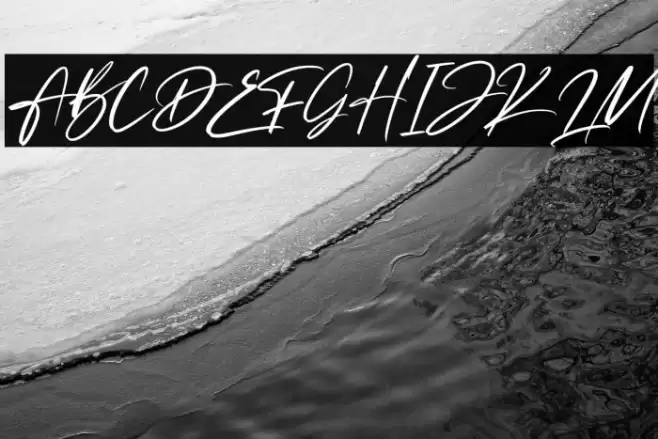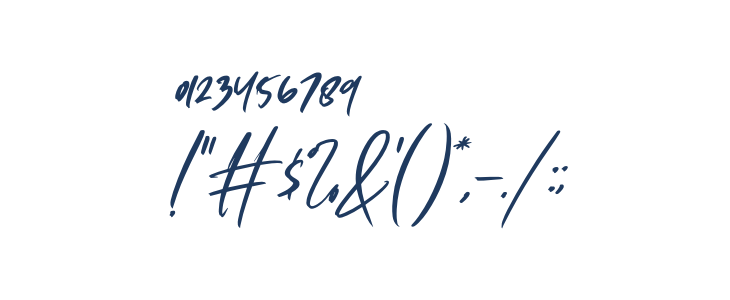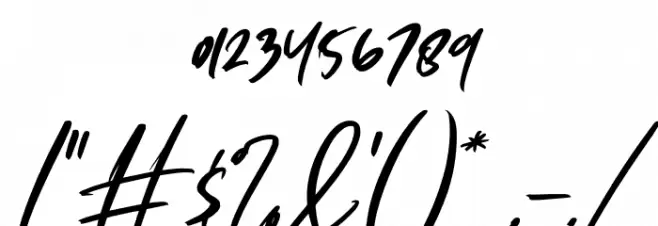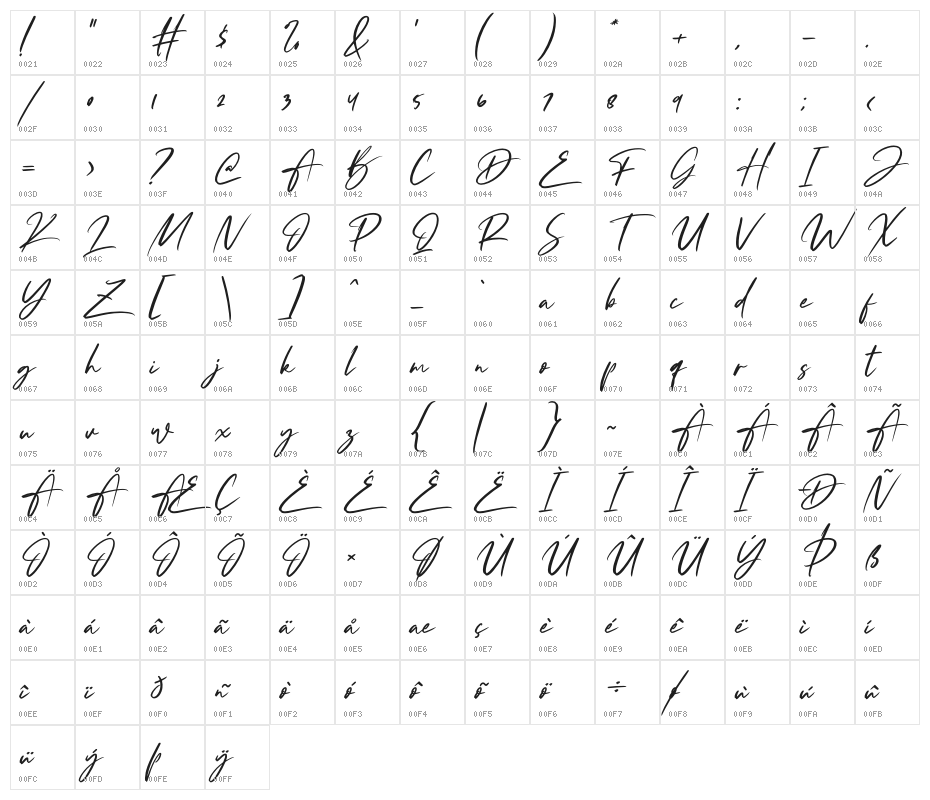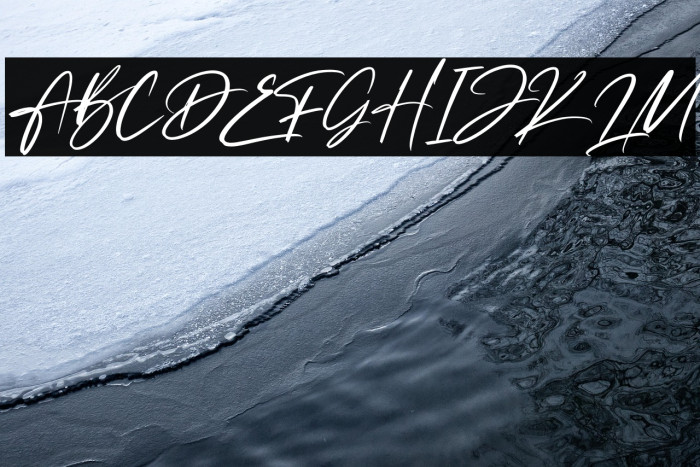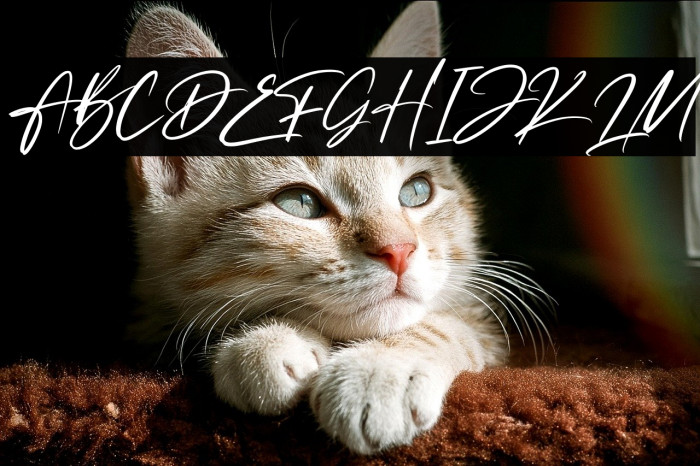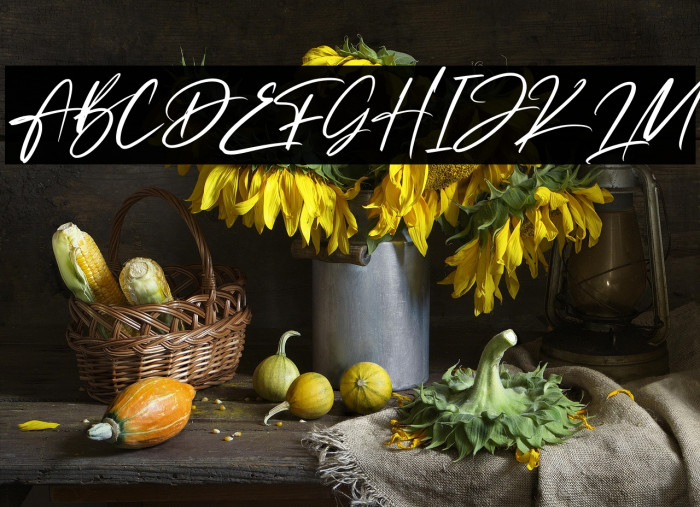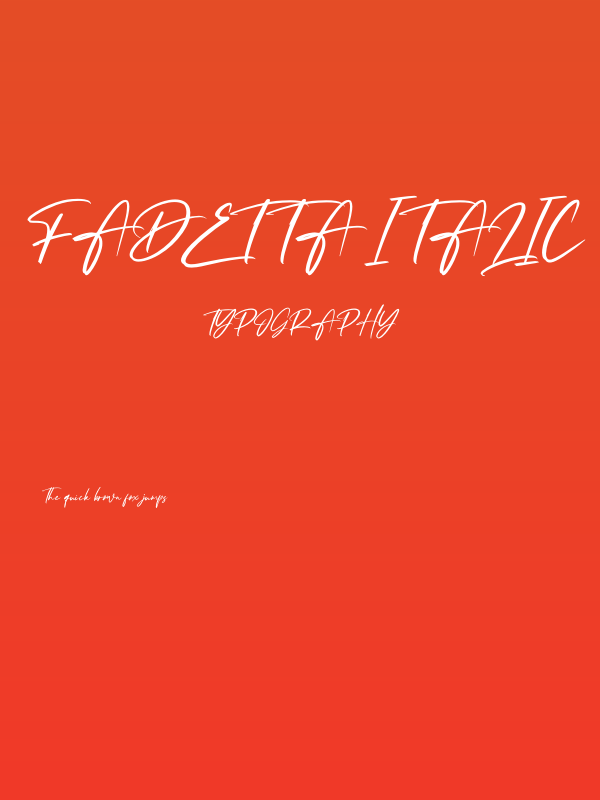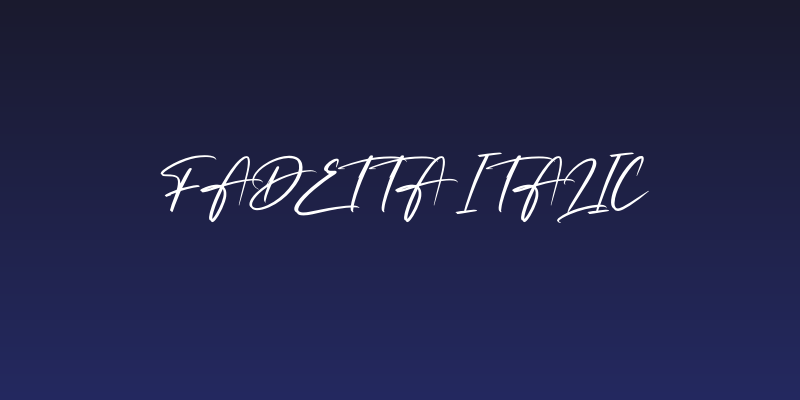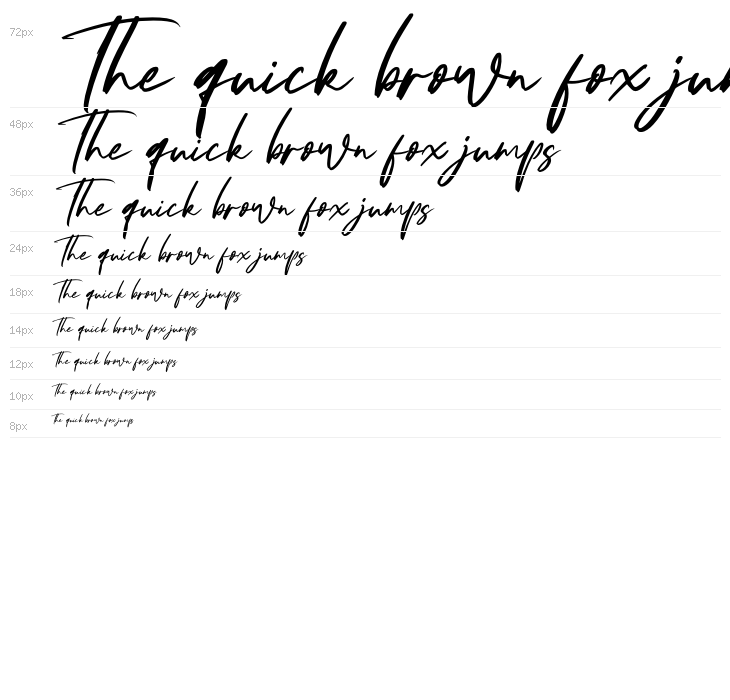
Fadetta Italic Font
Fadetta Italic Description
This font exudes a dynamic and expressive style, characterized by its fluid, cursive strokes that mimic the natural flow of handwriting. The letters are connected, creating a seamless and elegant appearance. The uppercase letters are bold and prominent, while the lowercase letters maintain a consistent rhythm, enhancing readability. The numbers and special characters are crafted with the same attention to detail, ensuring a cohesive look across all elements. The overall design is both modern and artistic, making it suitable for creative projects.
A dynamic, cursive font with fluid, connected strokes and a modern, artistic style from Uncategorized fonts.
- Proposed Projects: Ideal for wedding invitations, personal branding, artistic posters, and creative logo designs.
- Overall Style: Modern, Artistic
- Use Case: Logos, Invitations, Creative projects